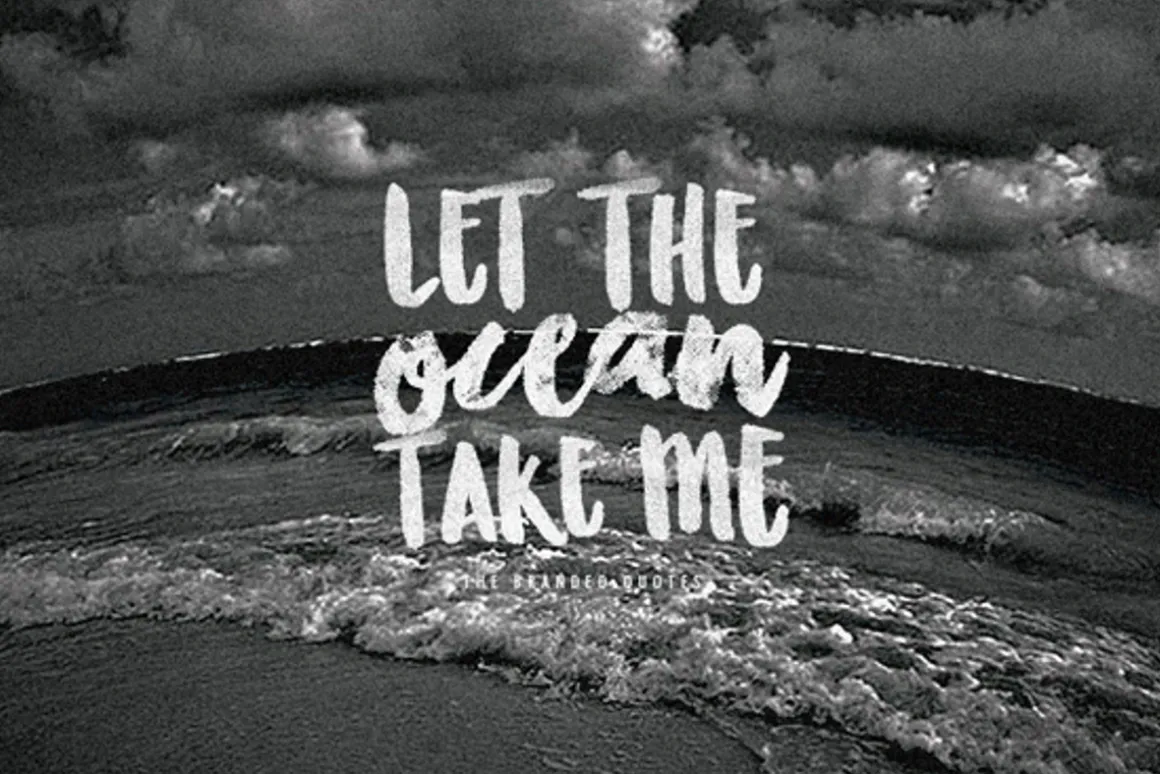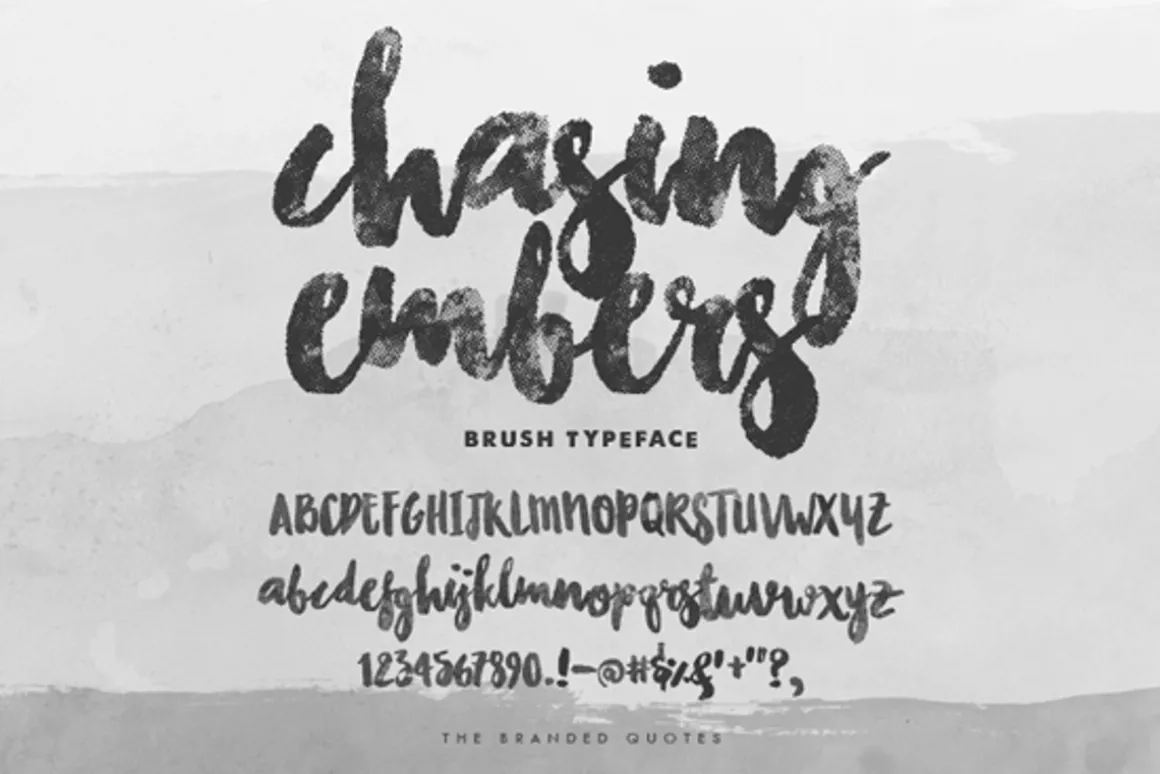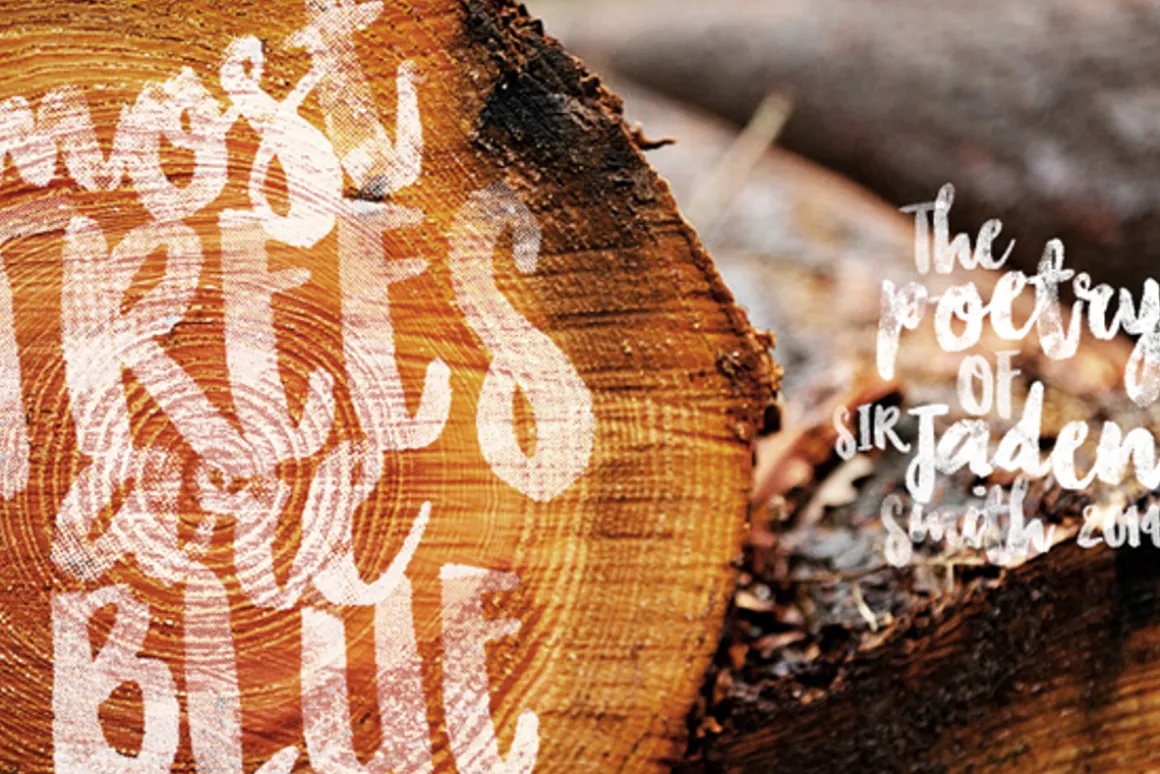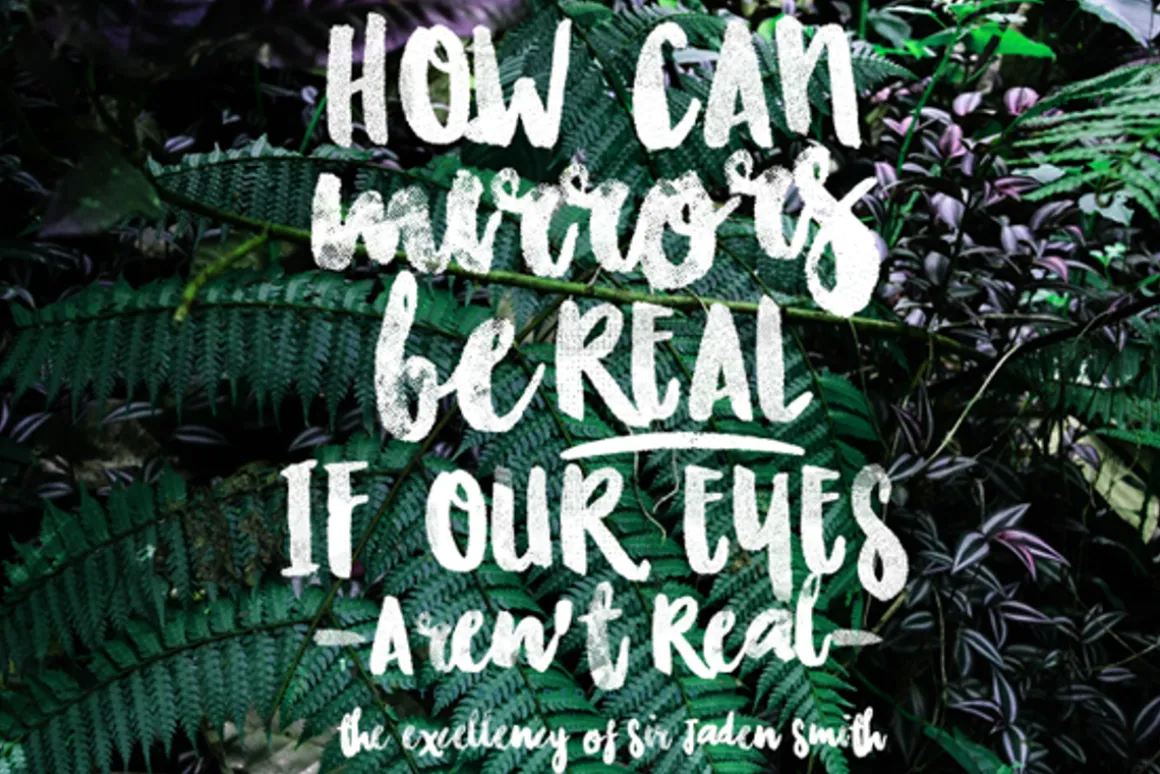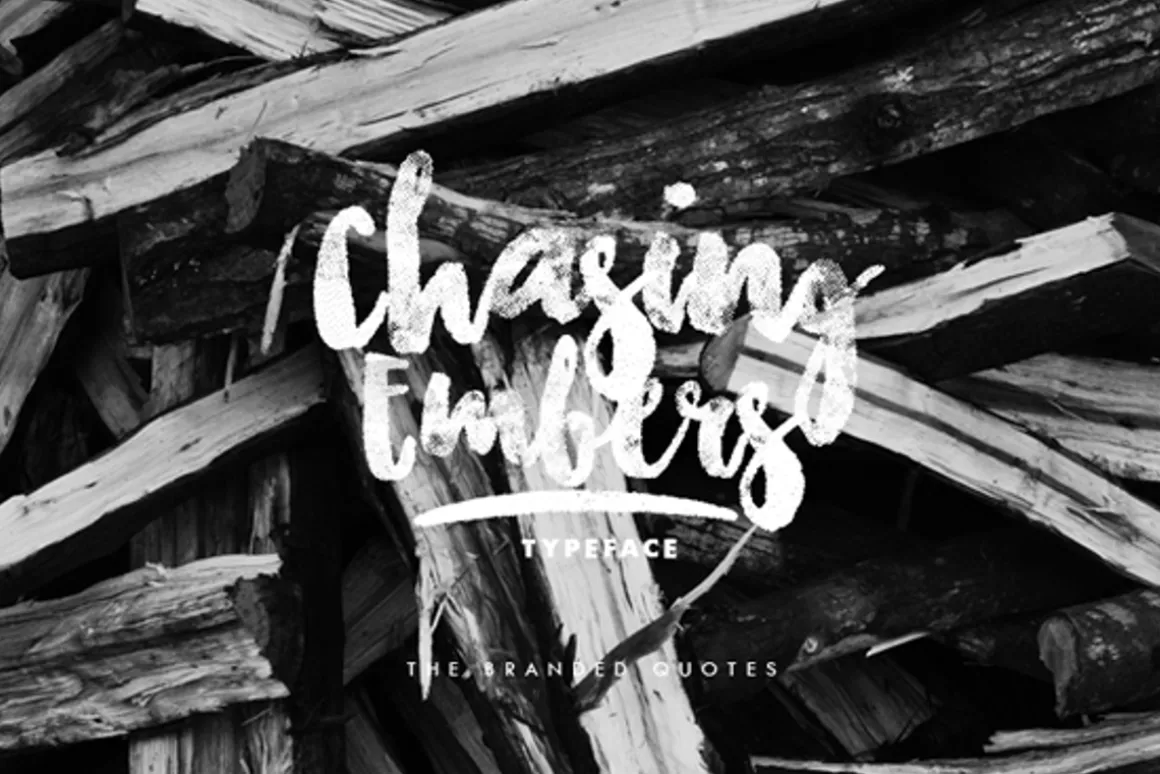
Brush font that has ink/watercolor texture of its own.No need to overlay anything, just throw it over your photographs and projects!This font is a camouflage to whatever background you lay under it.Created for your brand name, band name, identity, photographs, blog headers, album artand anything you think would fit perfect!
Note: Try typing the underscore symbol for the swash.